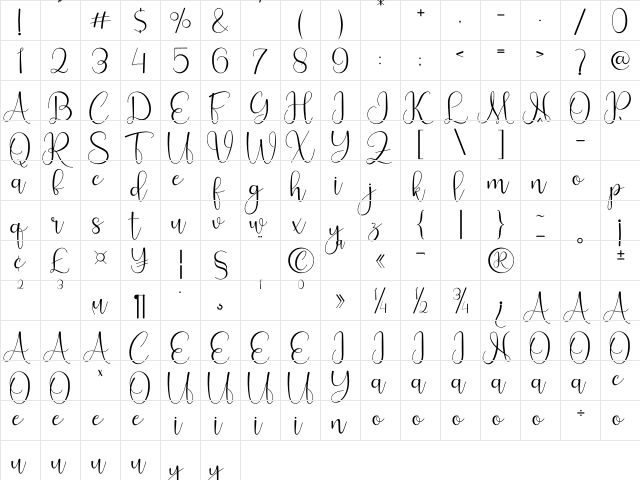
Hello Sheila Regular
Design Context for Hello Sheila Typeface
Hello Sheila is a composed and adaptable typeface that performs quietly and consistently across a wide range of design contexts.